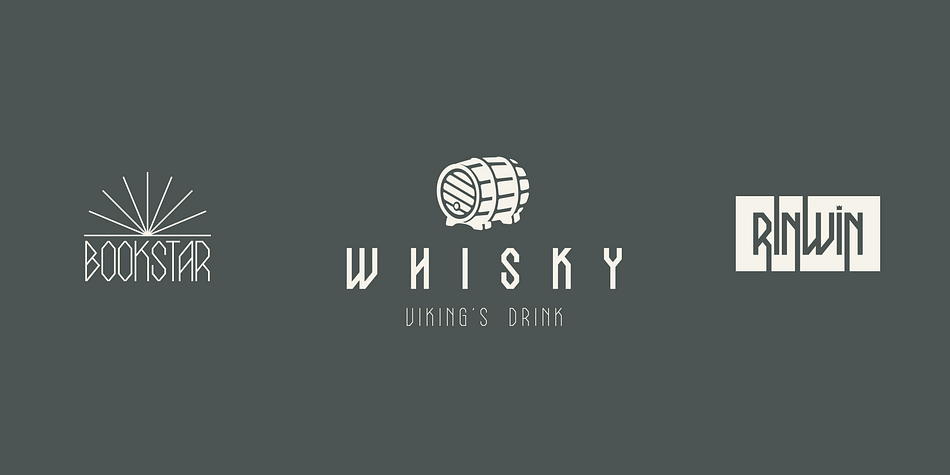
Celticon
Celticon is a historical font family. This typeface has four styles and was published by Sentavio.
Celticon Font Family create ancient celtic magic vikings’ myths and gothic atmosphere and style.
It is good looking as header and as text both.
Celticon Font Family consists of three weights: Light, Regular and Bold.